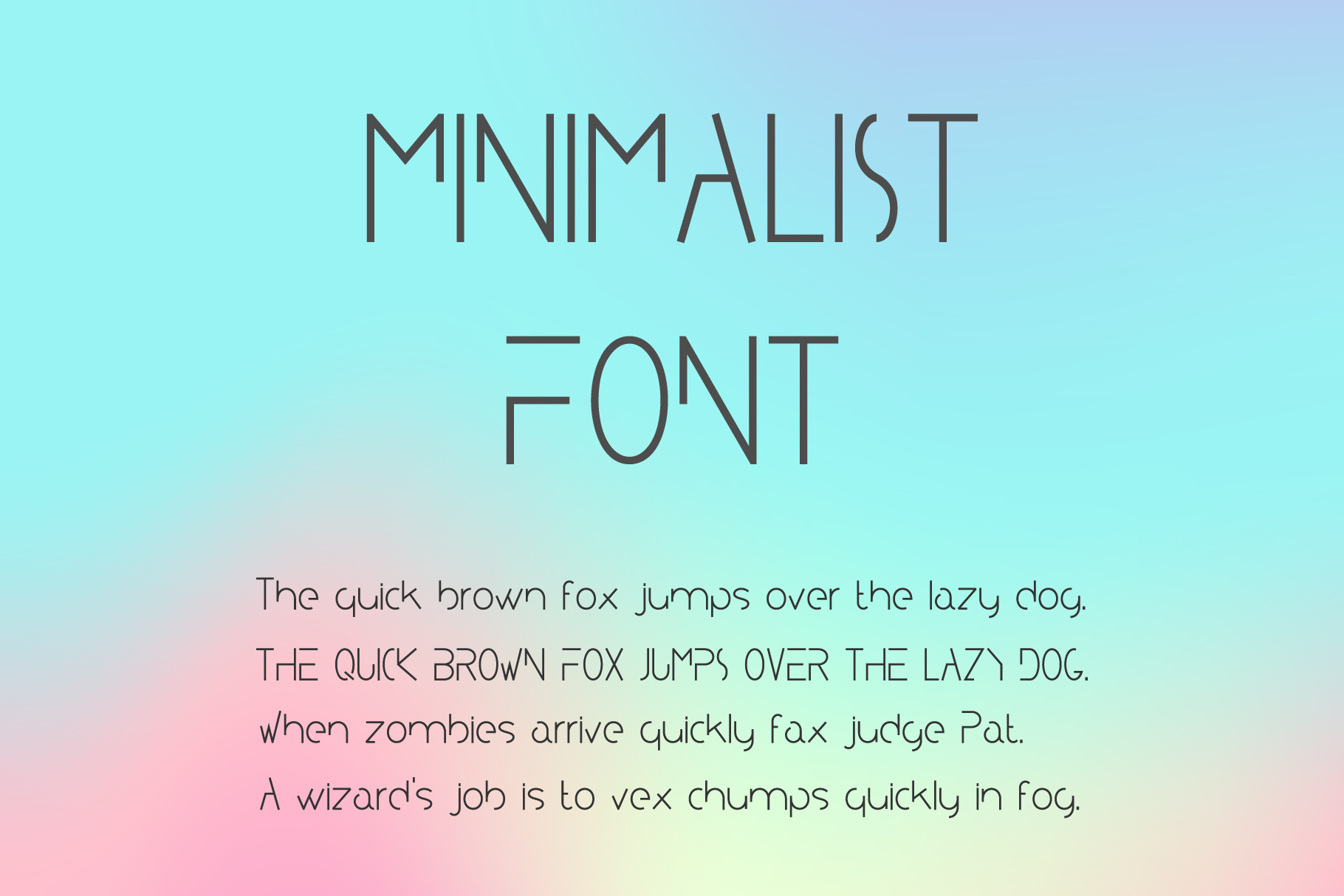
Minimalist Typeface. A Minimal Font
Minimalist Typeface is a modern minimalist and clean sans serif font. Perfect for trendy minimalist style design, headers, posters, cards, quotes, stationery, web sites. Web font version (WOFF) is also included.
Contains only:
- Uppercase letters (A .. Z).
- Lowercase letters (a .. z).
Does not contain: numbers, special symbols.